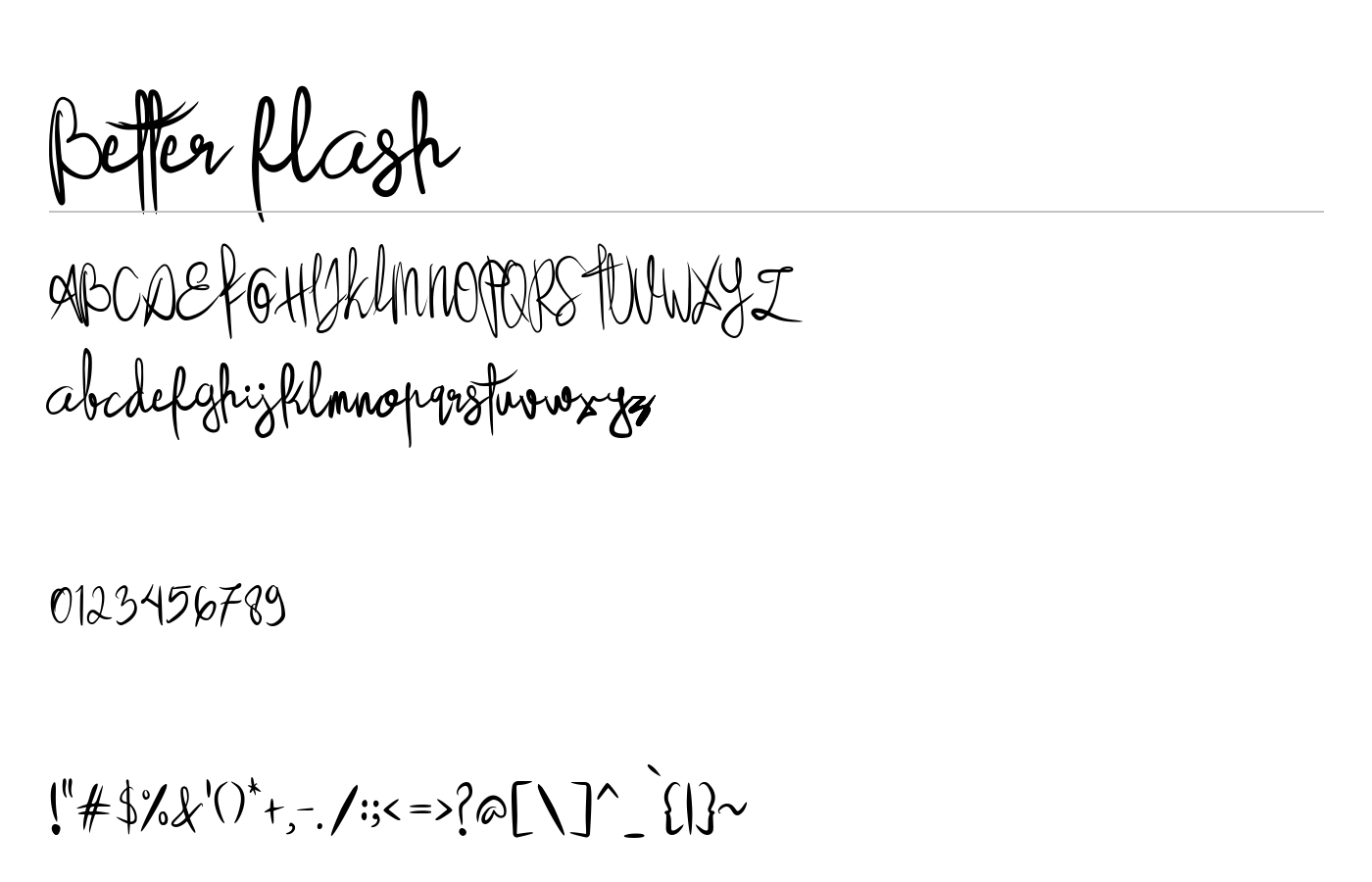
Better Flash is a playful and energetic handwritten script font characterized by tall, slender letterforms with varied stroke widths and lively, irregular shapes. Its informal style and unique, quirky characters make it perfect for creative projects needing a personal, casual touch, such as invitations, logos, or social media graphics. This font adds a fun and dynamic vibe while maintaining readability, ideal for designs that want to stand out with personality.
Better flash Font
About Better flash Font
| Font family | Better flash Font |
| Designer | Linyeng Studio |